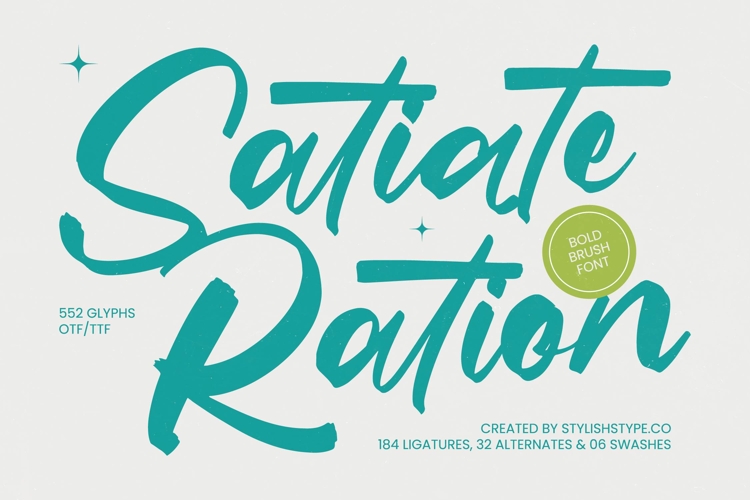
Satiate Ration - Bold Brush Font
Unleash a wave of authentic expression with Font Satiate Ration - Bold Brush Font Script. This captivating bold brush font brings an undeniable energy and a handcrafted touch to any design. Its vibrant, fluid strokes exude confidence, making every word an artistic statement. Perfect for commanding attention with its distinct, organic texture, it transforms ordinary text into extraordinary visual experiences.
Experience unparalleled design freedom through its rich typographic features. Font Satiate Ration - Bold Brush Font Script boasts an impressive 552 glyphs, including 184 ligatures, 32 alternates, and 6 dynamic swashes. These extensive stylistic sets allow for truly unique customization, enabling designers to craft bespoke lettering that resonates with authenticity and sophistication across various creative projects.
Elevate your brand's presence with a font designed for impact. Font Satiate Ration - Bold Brush Font Script is ideal for luxury branding, bold packaging, dynamic social media campaigns, and engaging editorial designs. It’s perfect for creating eye-catching headlines, unique merchandise, posters, and logotypes that demand attention and convey a sense of genuine artistic flair and memorable style.
Expand your global reach without compromise. With its extensive multilingual support, Font Satiate Ration - Bold Brush Font Script adapts seamlessly across global markets, making it incredibly versatile for international projects. Invest in this powerful brush script to ensure your message is not only visually stunning but also universally accessible, leaving an unforgettable impression on every audience.